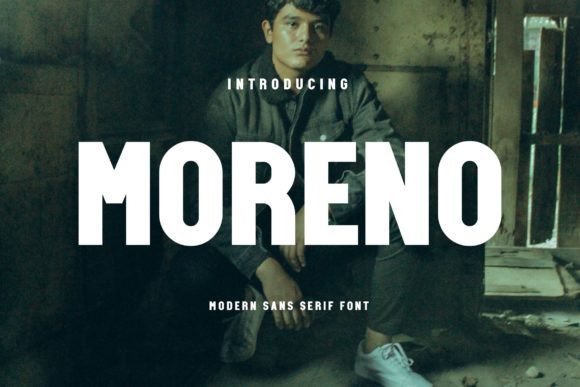
Prepare yourself to be mesmerized by the stunning Moreno Font, a bold and assertive sans serif that exudes confidence and sophistication. Crafted with meticulous attention to detail by the renowned Aqeel_Art, Moreno embodies the essence of modern minimalism and is poised to elevate your creative projects to unparalleled heights.
Moreno's striking presence commands attention, making it the perfect choice for designing logos, brochures, and captivating videos. Its clean lines and crisp edges lend an air of professionalism and elegance, ensuring your brand's message is conveyed with impact and clarity. Whether you're creating marketing materials, designing social media posts, or crafting eye-catching invitations, Moreno is your ultimate font companion.
Unleash your creativity and let Moreno ignite your imagination. Its versatility knows no bounds, effortlessly adapting to a myriad of design styles and themes. From sleek and contemporary to classic and timeless, Moreno seamlessly blends with your vision, enhancing your designs with a touch of sophistication.
Experience the transformative power of Moreno as it breathes life into your templates and layouts. Its carefully crafted letterforms dance harmoniously on the page, creating a visual symphony that captivates and engages your audience. With Moreno, your designs will transcend the ordinary, leaving a lasting impression that resonates long after the page is closed.
Immerse yourself in the world of Moreno, where elegance meets functionality. Its meticulously designed characters ensure readability and clarity, making it the ideal choice for text graphics. Whether you're crafting compelling headlines, informative articles, or captivating presentations, Moreno delivers a seamless reading experience, ensuring your message is received loud and clear.